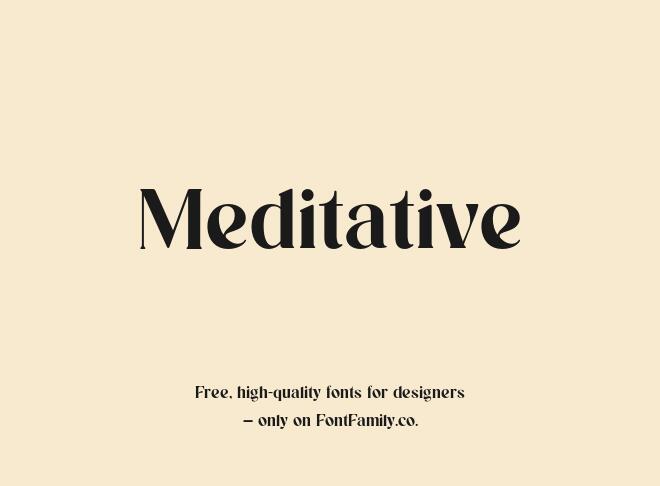
Meditative Font
Meditative Font, designed by Tranquil Foundry, is a modern, minimal, and elegant typeface that emulates the tranquility of meditation in its design. Released in 2019, this font is perfect for designers seeking a clean and simple aesthetic with a touch of sophistication. The font is characterized by its sleek lines and balanced spacing, making it a great choice for branding, web design, and print media. Compared to other fonts, Meditative Font stands out for its unique ability to convey a sense of calm and clarity. Whether you're designing a minimalist website, a sophisticated business card, or a tranquil book cover, Meditative Font can enhance your design with its serene elegance. It's free for personal use, making it a cost-effective option for your design toolkit.